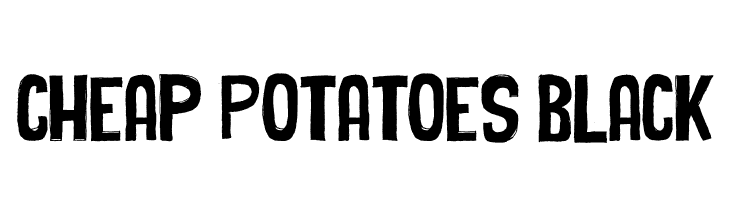
A bold, hand-painted style font with a dynamic and textured appearance.
A bold, distressed font with a hand-drawn, vintage aesthetic.
A playful, bold handwritten font with uneven strokes and a quirky style.
A bold, brush-like font with an expressive and artistic style.